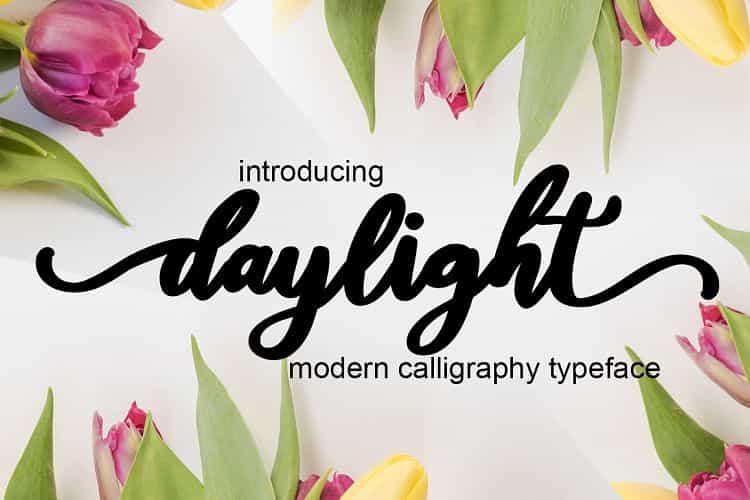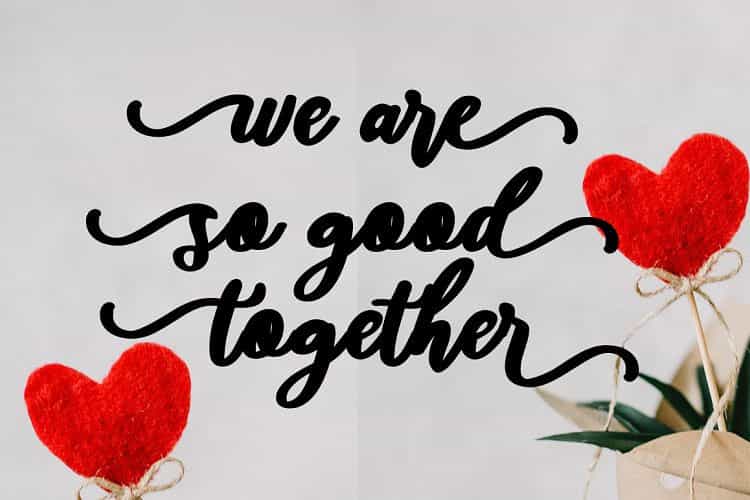
Daylight Script is a new and fresh script, which is very modern and has a handmade calligraphy style, the decorative characters are so beautiful on the invitation like greeting cards, branding materials, business cards, quotes, posters, and more!!.